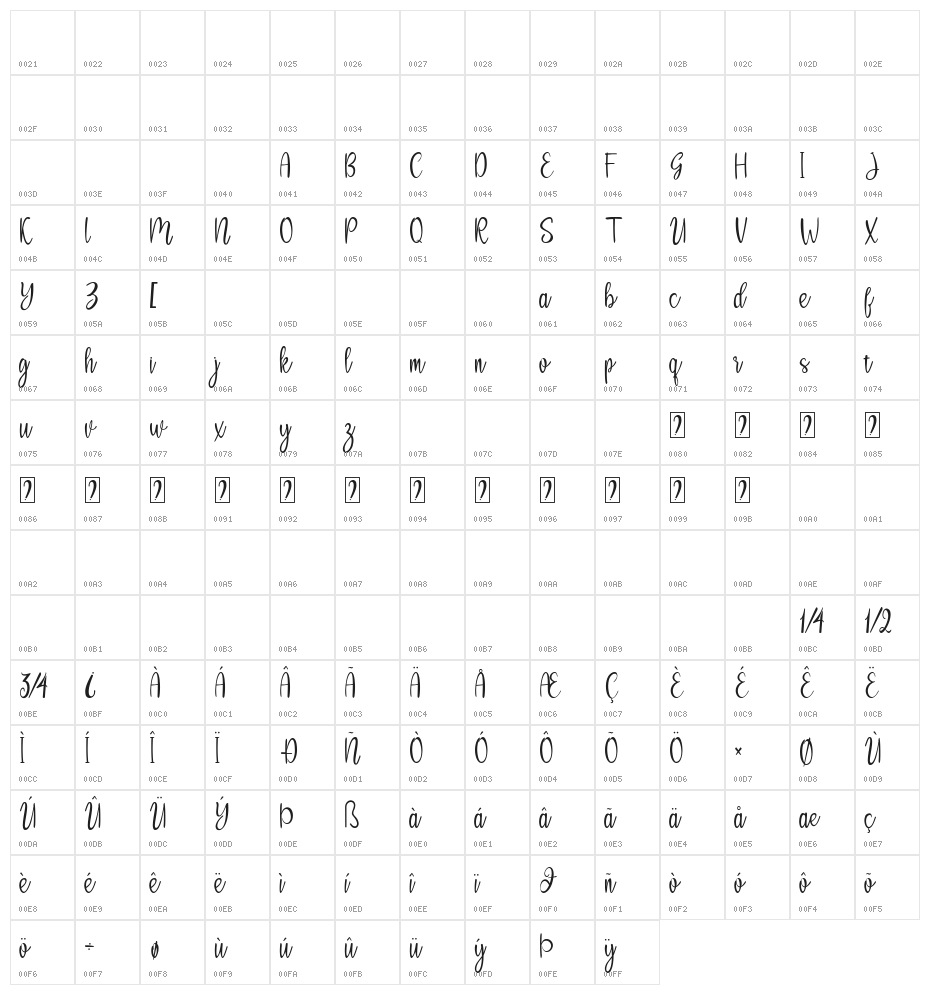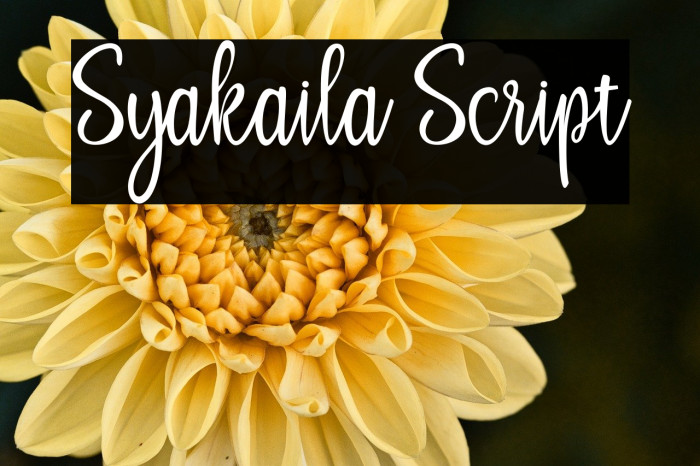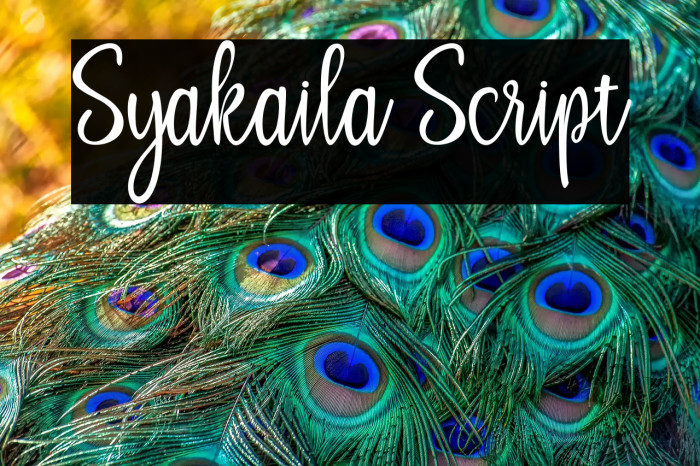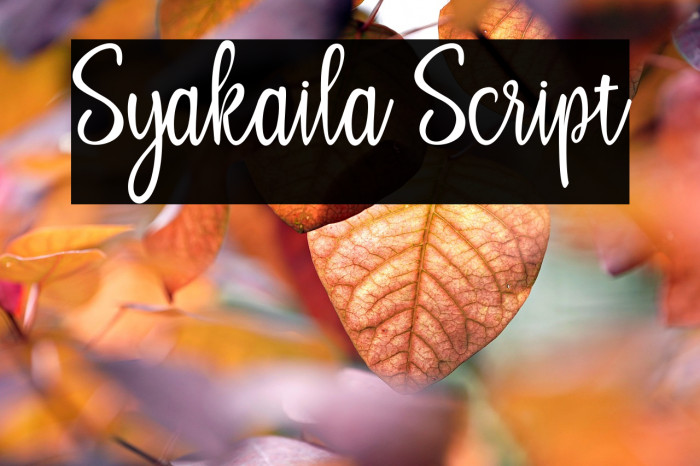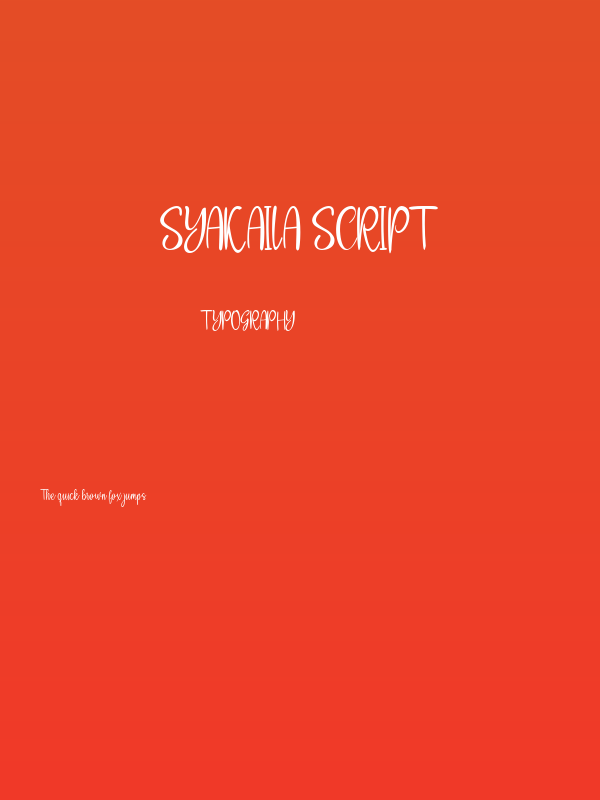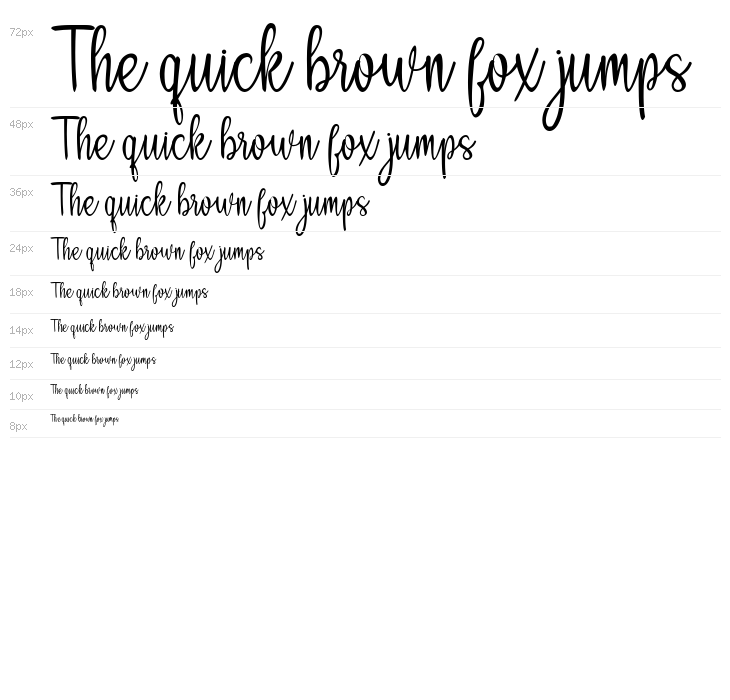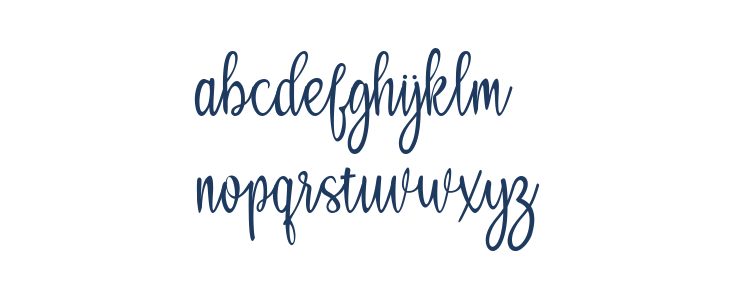
Syakaila Script Font
Syakaila Script Description
This font features a flowing, cursive style with elegant, sweeping strokes that give it a handwritten appearance. The uppercase letters are bold and slightly elongated, while the lowercase letters maintain a consistent fluidity, enhancing the script's overall graceful look. The characters are well-spaced, allowing for readability despite the intricate design. The font's playful yet sophisticated style makes it suitable for a variety of creative applications. It captures a sense of movement and dynamism, making it ideal for projects that require a personal touch.
Use CaseLogos, Invitations, Decorative text
Proposed ProjectsIdeal for wedding invitations, greeting cards, branding, and logo design.